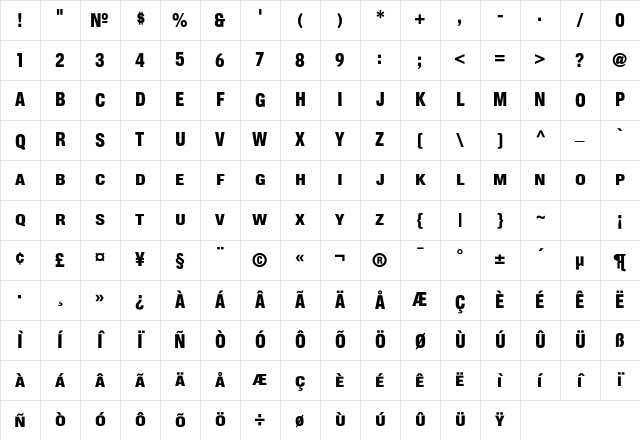
CorpusGothicSmallCaps Regular Free Font
CorpusGothicSmallCaps Regular
Design Context for CorpusGothicSmallCaps
CorpusGothicSmallCaps takes a clean, functional approach - its unadorned letterforms prioritise legibility and work reliably across screen and print environments.
Font Pairing: Works well alongside a characterful serif or display font that can carry the expressive load while CorpusGothicSmallCaps handles the functional copy.
Pro Tip: Use CorpusGothicSmallCaps for UI labels, navigation, and short-form body copy where clean legibility is the priority.